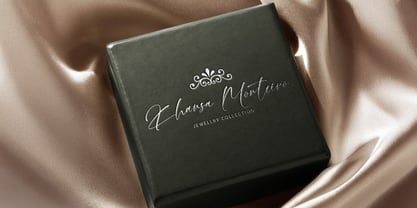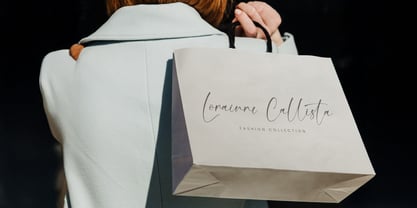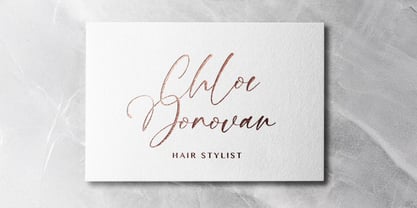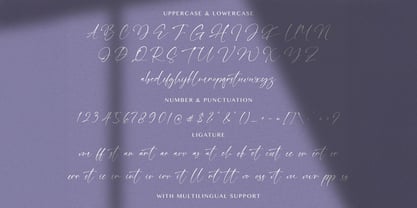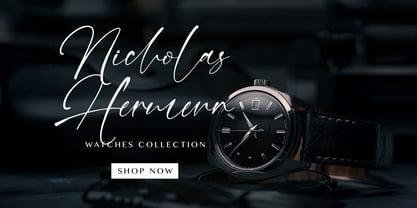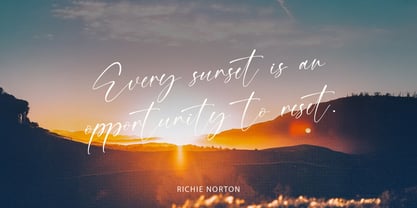
Winter Raya
Die Schriftfamilie Winter Raya wurde von Virgiawan Listanto entworfen und von Stringlabs Creative Studio veröffentlicht. Winter Raya enthält 1 Stile.
Winter Raya is a graceful signature font designed with flowing strokes and natural handwritten elegance. Its smooth, stylish lines capture the essence of personal handwriting, making it perfect for logos, invitations, wedding designs, branding, social media posts, and stationery. This font brings sophistication and warmth, offering both modern charm and timeless beauty. With Winter Raya, every design feels personal, elegant, and authentically handwritten.